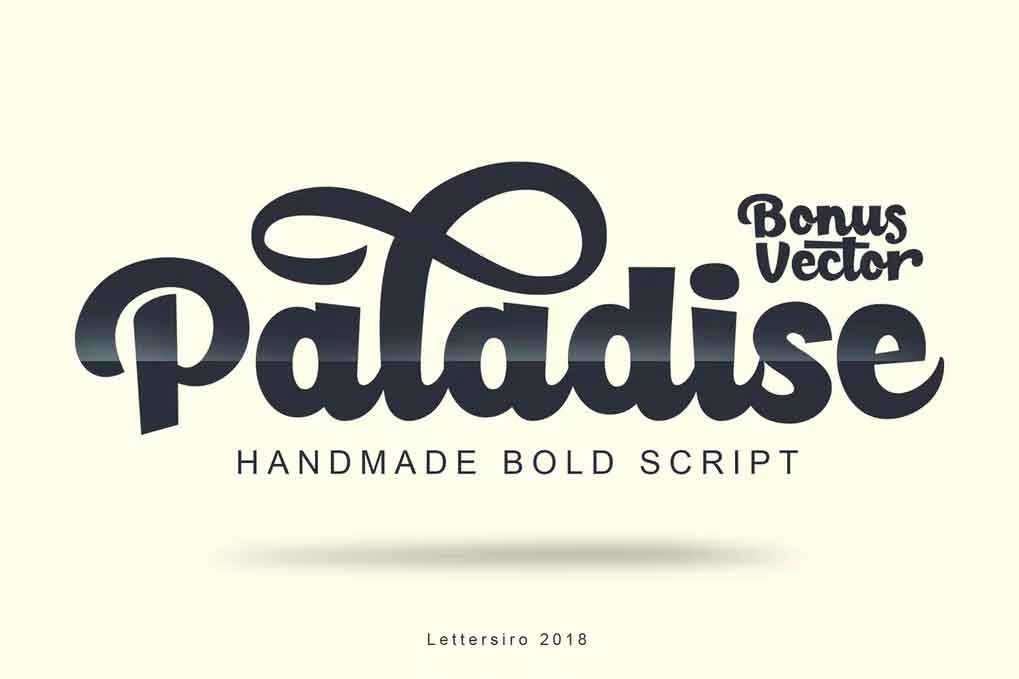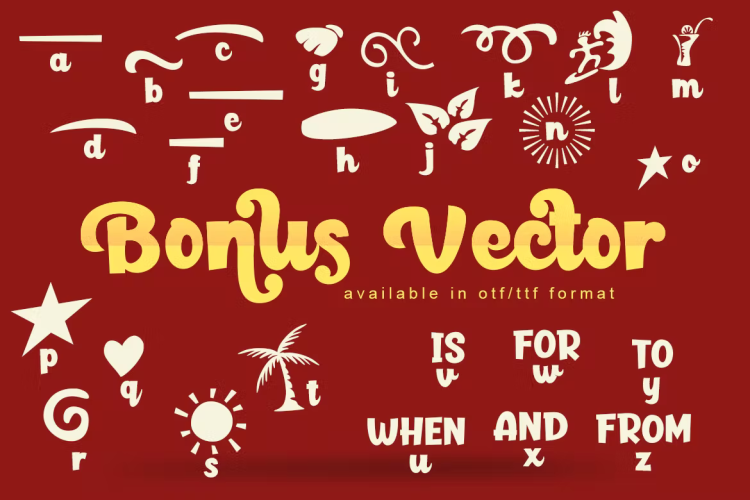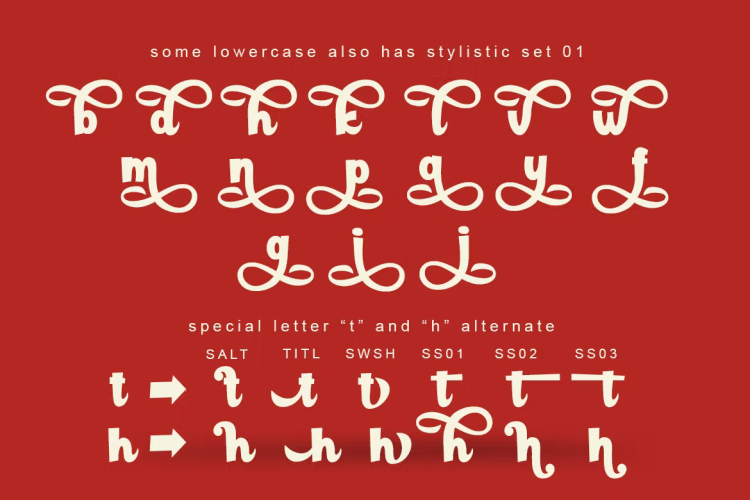
Paladise Font
We made a playful font, so cool and so beauty, called Paladise Font. This font is great for logo, poster, clothing, branding, party invitation, and many many other cool design projeects. Paladise comes with a loooot of alternate character, and also come with 26 bonus vectors.
Where Paladise Font works best
Paladise Font brings a personal, handwritten warmth to invitations, menus and place cards.
Craft brands — coffee, cosmetics, bakery — use scripts like Paladise Font for signature-style logos and labels.
Pair Paladise Font with a plain sans for quotes, stories and Pinterest pins that feel handmade.
What is Paladise Font good for?
Paladise Font is a Script And Handwritten typeface tagged Branding, Playful, Poster, Script. It works well for headlines, logos, posters, social media graphics and branding projects that need a distinctive script and handwritten look.